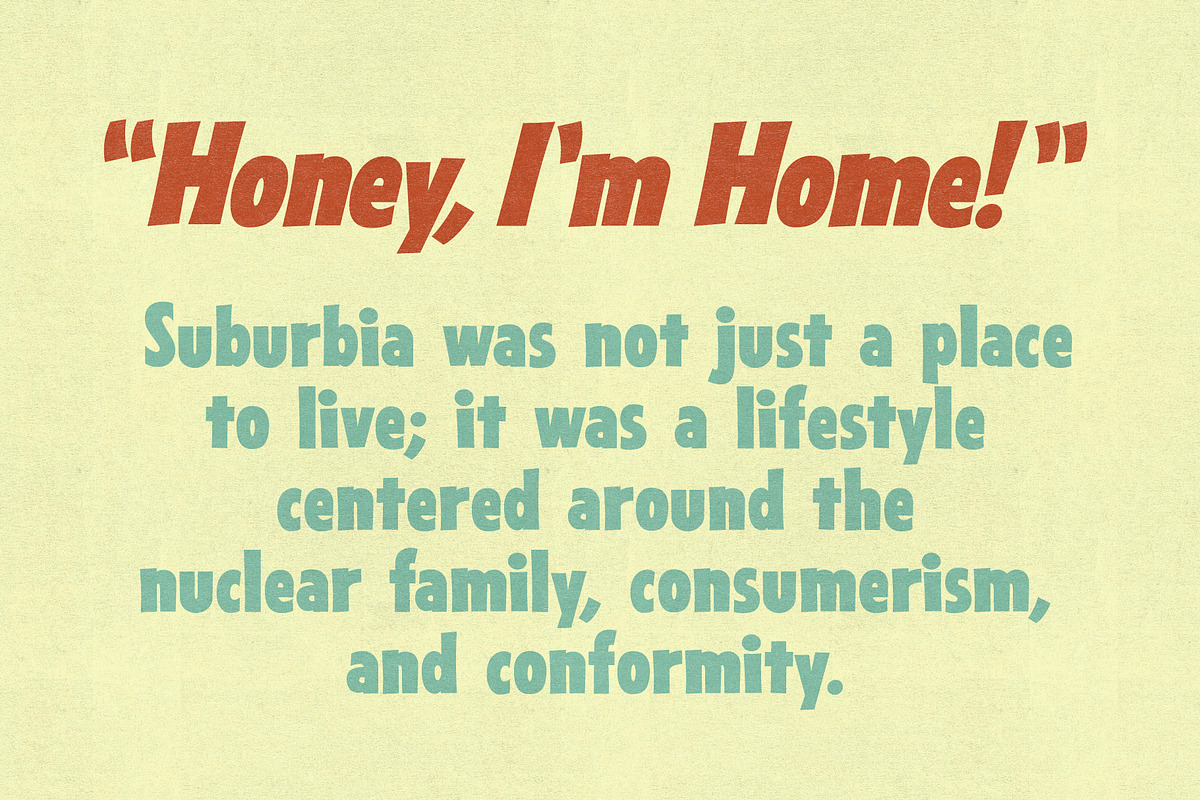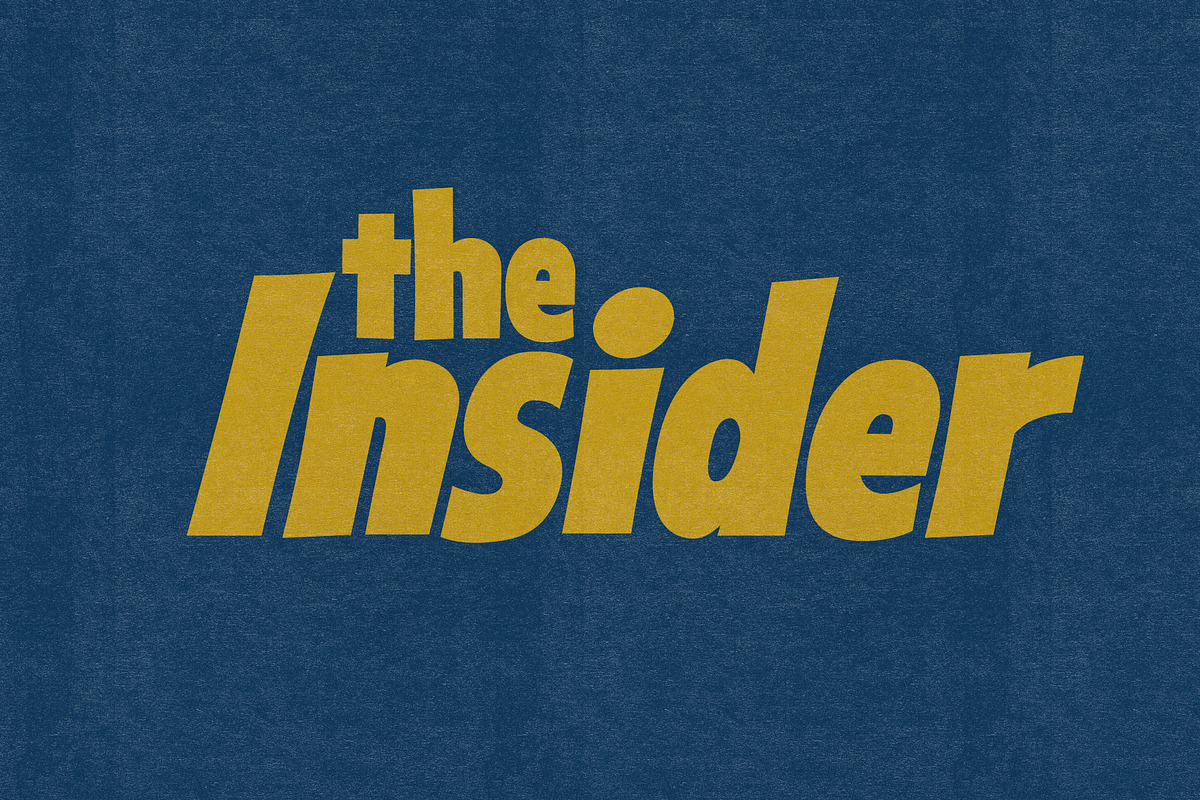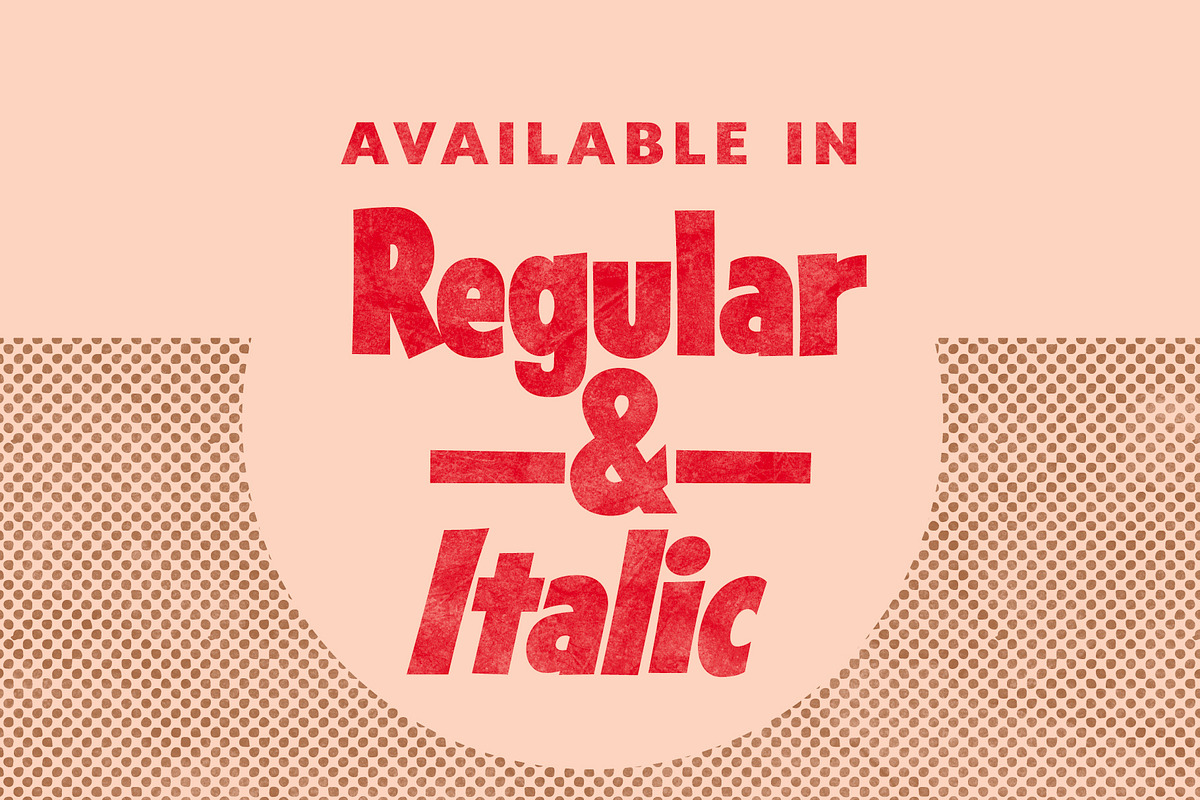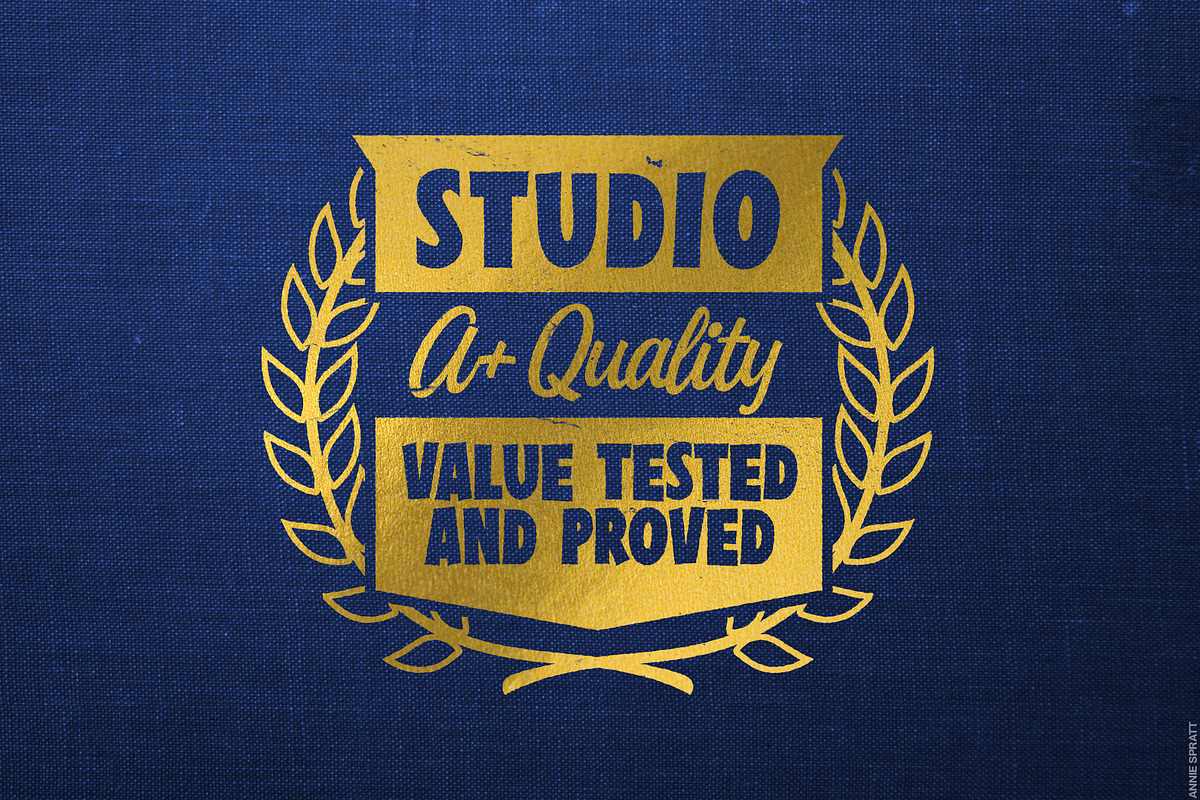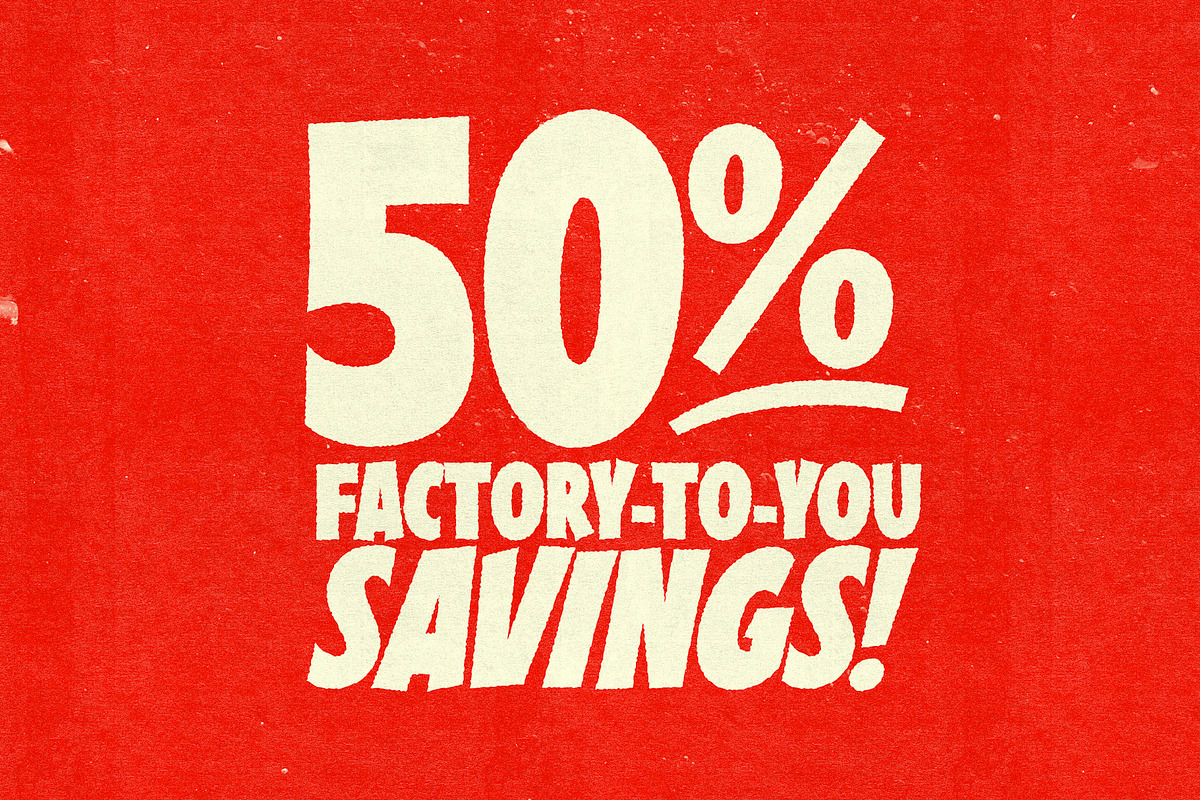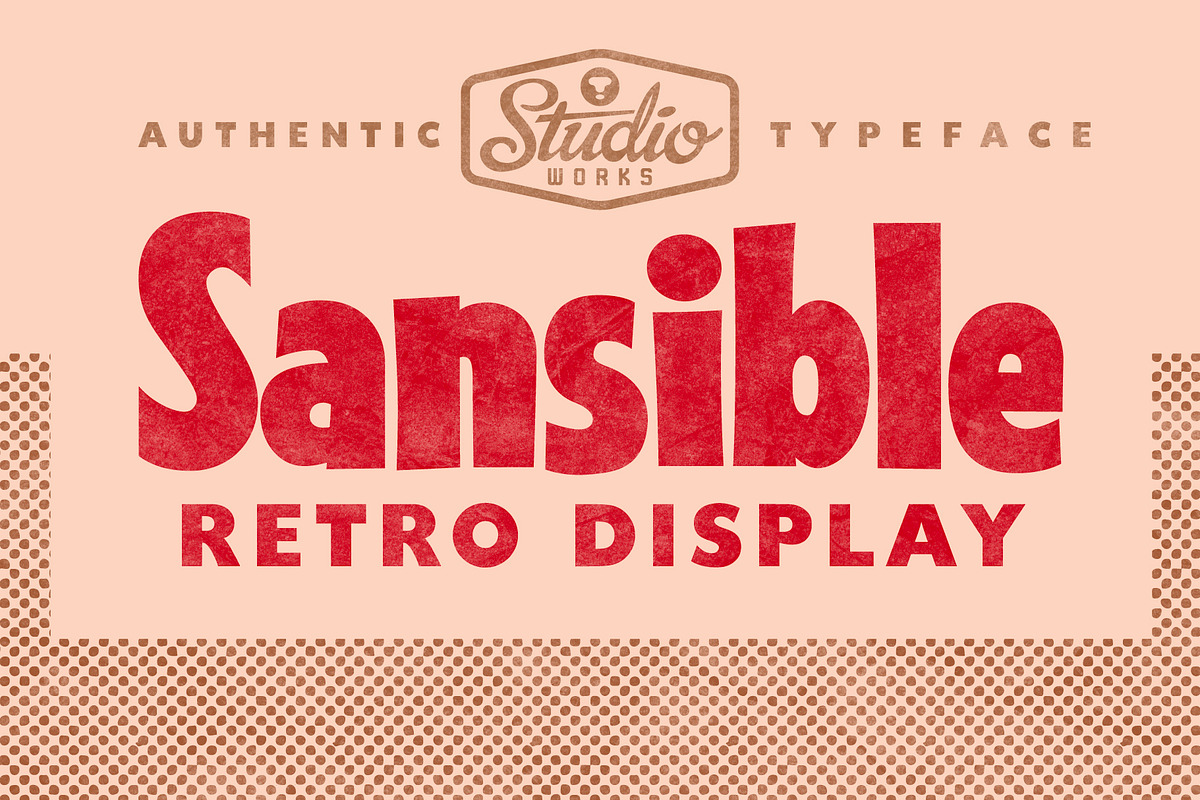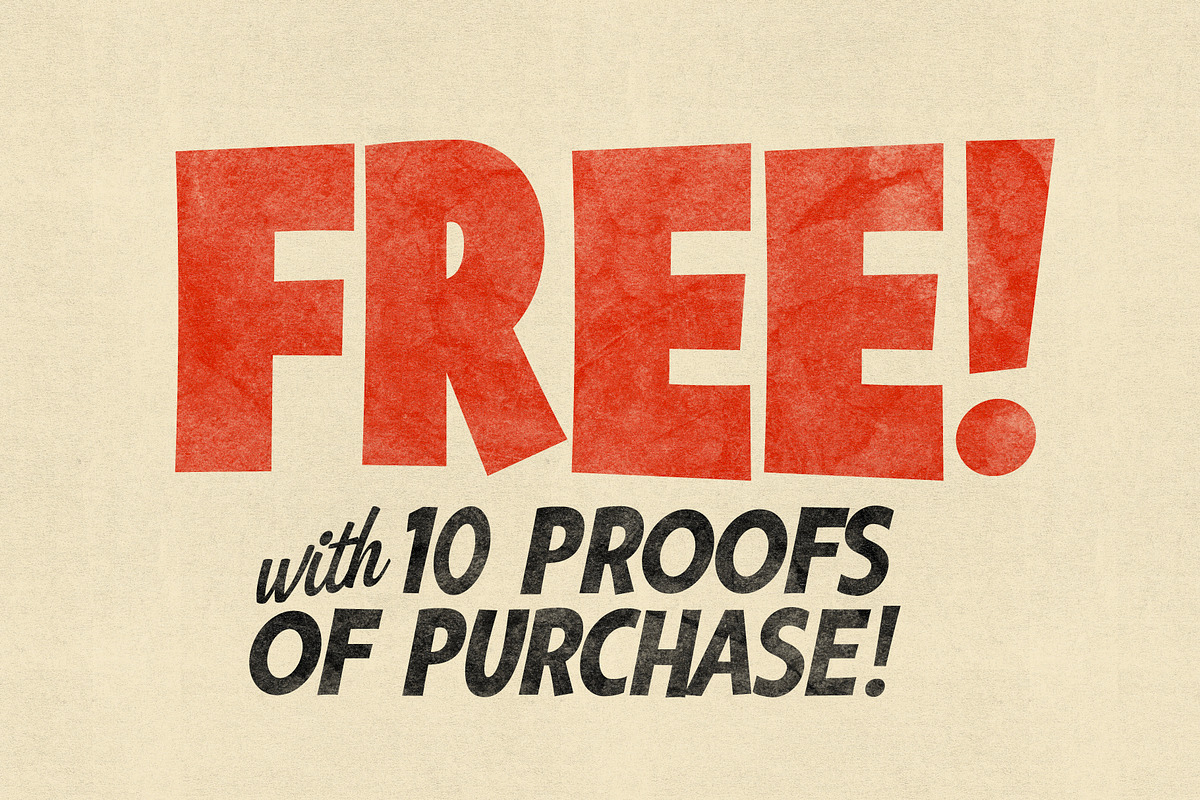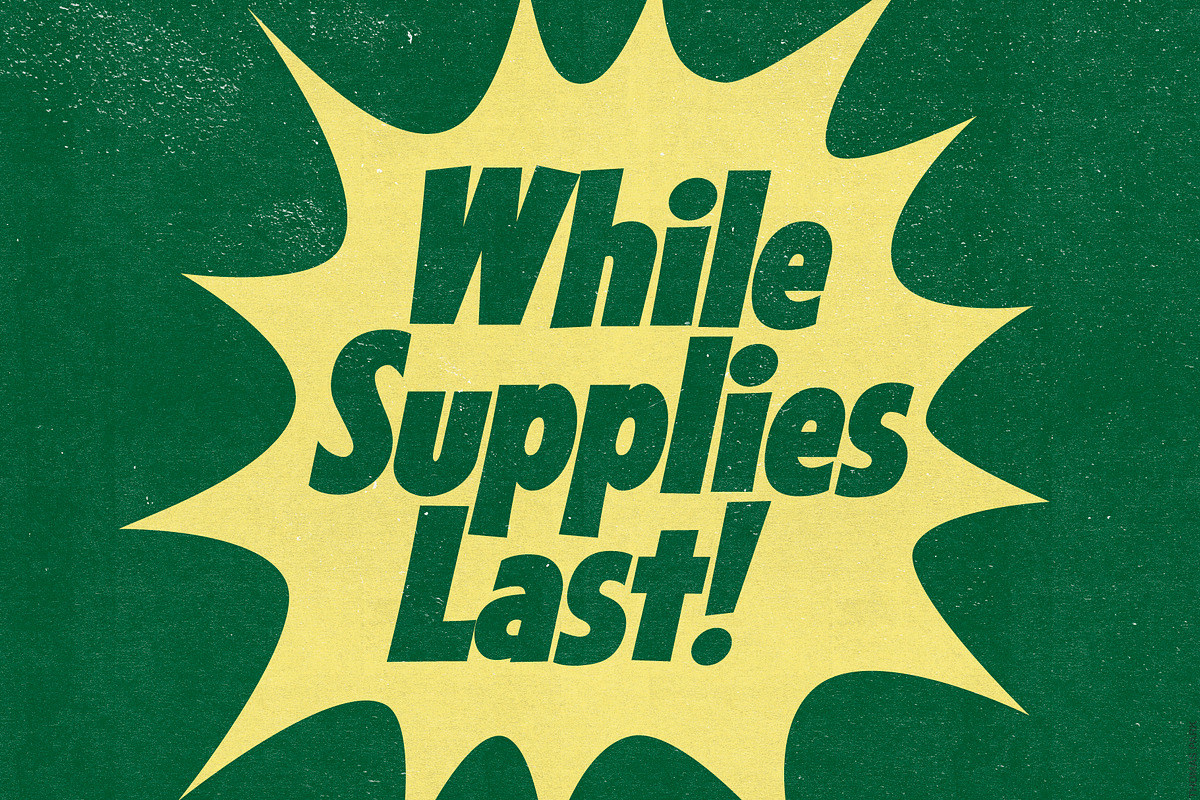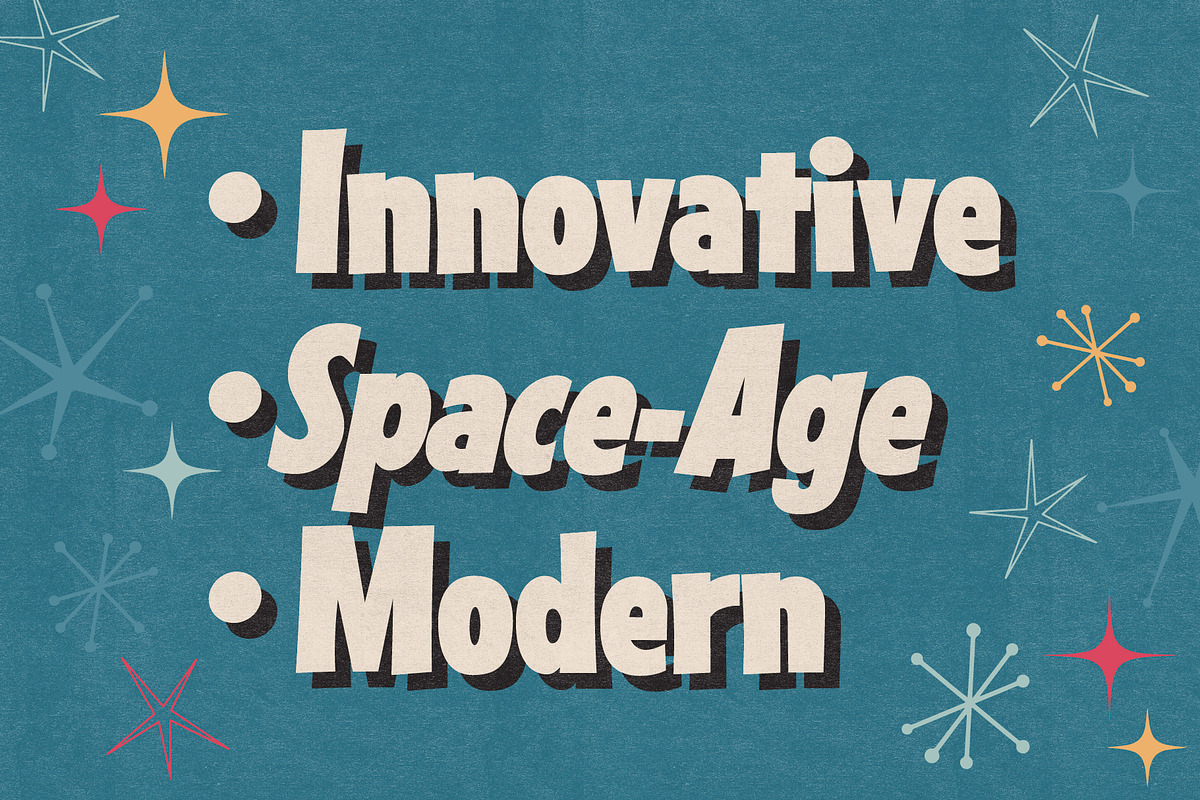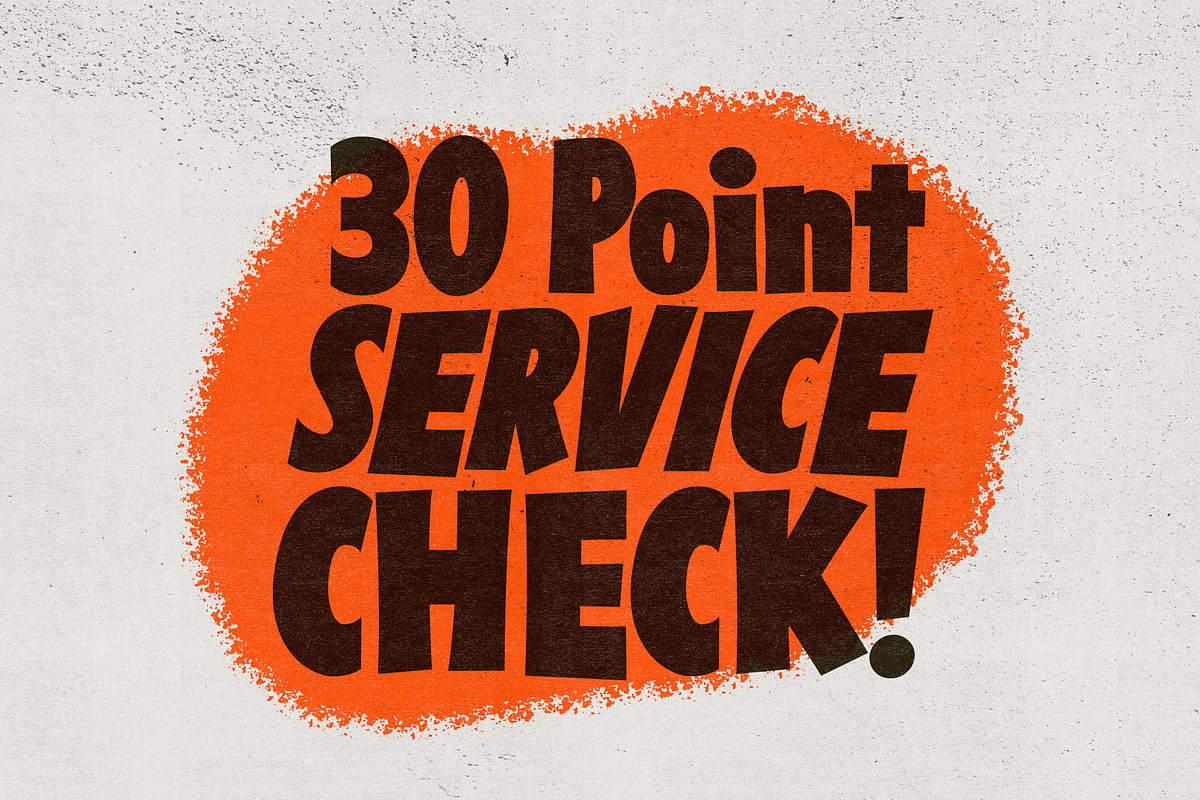
Sansible | Retro Display
Introducing •• S A N S I B L E •• — a bold, Midcentury hand-lettered typeface from StudioWorks!
Evoke the timeless charm of retro, sans serif display type with Sansible – a punchy and playful bold condensed typeface. Sansible was meticulously produced from studying the hand-crafted, sans serif display typefaces from midcentury magazine ads. With its casual lines, friendly form and bold posture, Sansible adds a touch of retro flair to any project.
Whether you're crafting vintage-inspired posters, modern logos, or eye-catching headlines, Sansible delivers the perfect balance of style and readability. Its condensed form allows for efficient use of space without compromising impact, making it ideal for both print and digital designs.
Sansible features:
- Upper (A-Z) and lower case (a-z) characters
- Numbers (0-9)
- Standard punctuation and glyphs
- Regular and Italic Typestyles